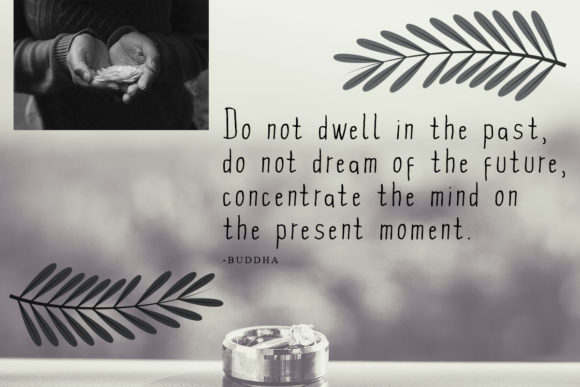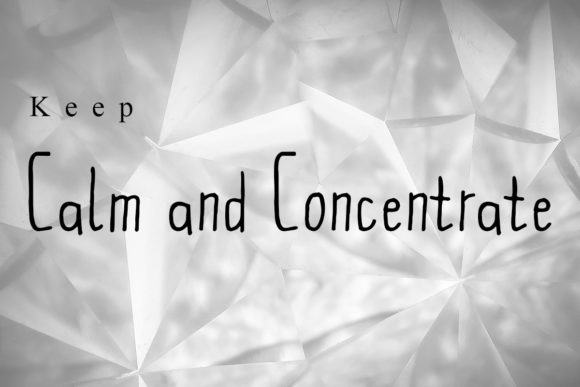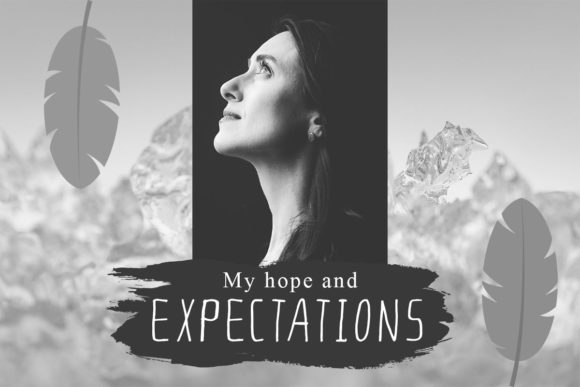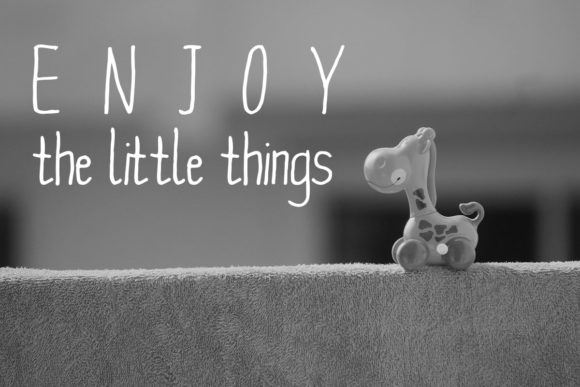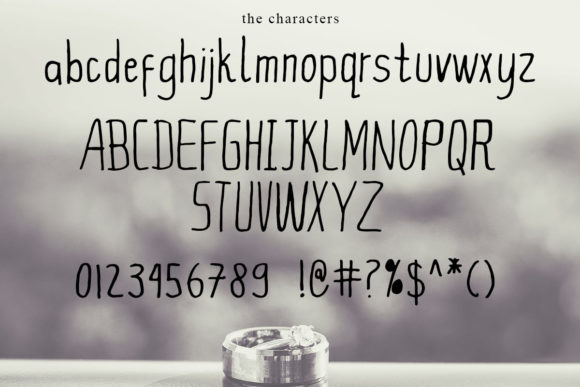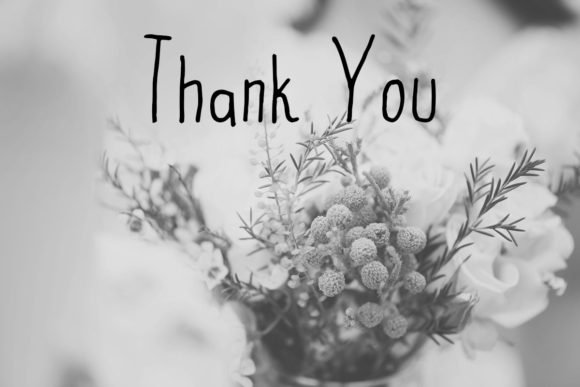
Introduction to Eternal Future Font
Eternal Future is a cool and weird handwritten font with a unique flavour.
It will turn any crafting idea into a true standout .
Key Features of Eternal Future Font
Why Choose Eternal Future Font?